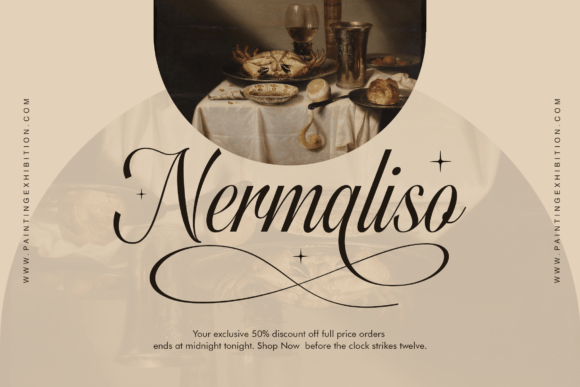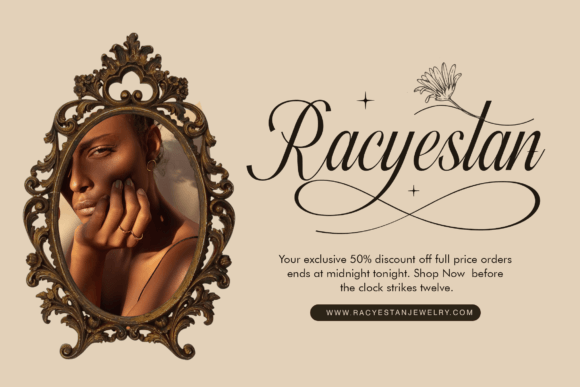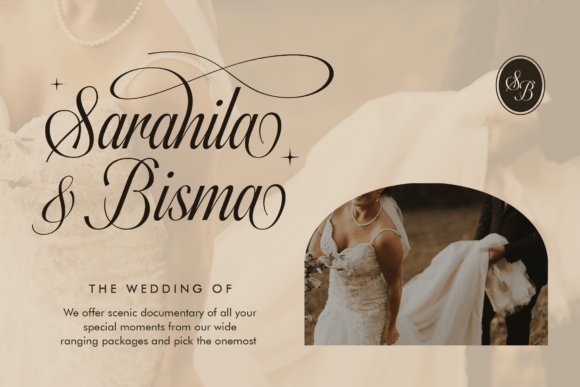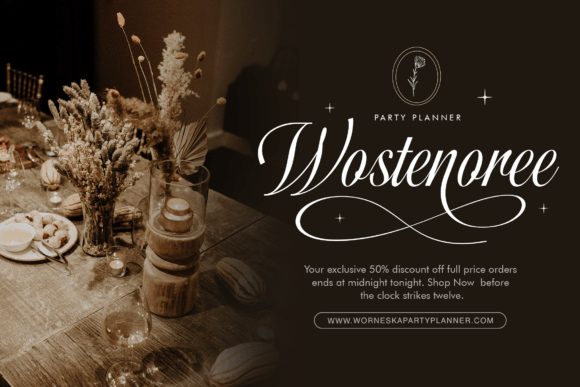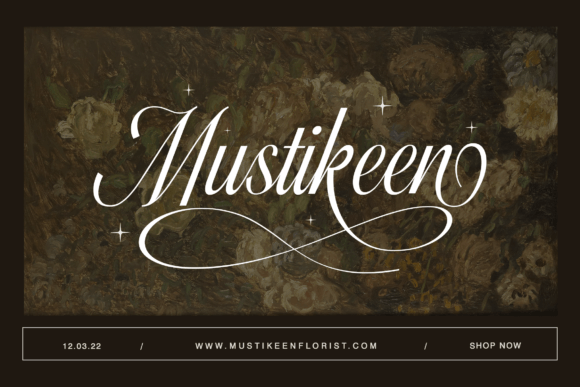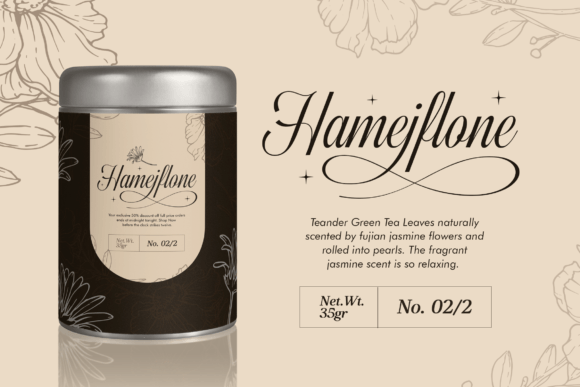
Fairyfiesta Font: Elevate Your Designs with Elegance
There’s nothing quite like the thrill of bringing a design to life. The moment when all the pieces come together, and your vision takes shape. It’s a feeling of pure creativity, and it’s one that designers strive for every time they sit down at their desk. But, have you ever felt like your typography is missing that extra something special? A touch of elegance, perhaps, or a dash of luxury? That’s where the Fairyfiesta Font comes in – a beautiful, classic copperplate calligraphy script font that’s sure to elevate your designs to new heights.
With its stunning ligature, alternate, and swash variations, the Fairyfiesta Font is the perfect tool for designers looking to add a touch of sophistication to their work. Whether you’re creating a luxury logo, a classy editorial design, or a woman’s magazine, this font is sure to impress. And, with its PUA encoding, accessing all the glyphs and swashes is a breeze – making it a valuable addition to any designer’s toolkit.
- Unique Characteristics: Fairyfiesta Font features a whimsical, hand-drawn design with intricate details and ornaments, perfect for creating magical and playful designs.
Fairyfiesta Font Review
Overall, I was excited to dive into the world of Fairyfiesta Font, but my experience was a bit of a mixed bag. Here’s the lowdown:
- The whimsical, playful feel of the font is perfect for projects that need a touch of magic. Whether it’s a children’s book, a party invitation, or a festive logo, Fairyfiesta Font delivers.
- The font’s versatility in terms of its various weights and styles is impressive. From light to bold, the font’s adaptability makes it suitable for a wide range of applications.
- The font’s unique design elements, such as the intricate flourishes and ornaments, add a delightful touch to any design.
- Unfortunately, the font’s legibility can suffer at smaller font sizes. This may be a concern for projects where the text needs to be readable at a distance.
- The font’s complexity can make it difficult to use in situations where a clean, simple design is required.
Overall, Fairyfiesta Font is a unique and charming addition to any designer’s toolkit. While it may have some limitations, its playful charm and versatility make it a great choice for projects that need a touch of whimsy.
Tips for Getting the Most Out of Fairyfiesta Font
Use Fairyfiesta Font for whimsical and playful designs, such as invitations, party decorations, and children’s products.
Pair Fairyfiesta Font with other playful fonts or graphics to create a cohesive and festive design.
Fairyfiesta Font is ideal for:
Party invitations and decorations
Children’s products and toys
Wedding and event decorations
Whimsical and playful branding